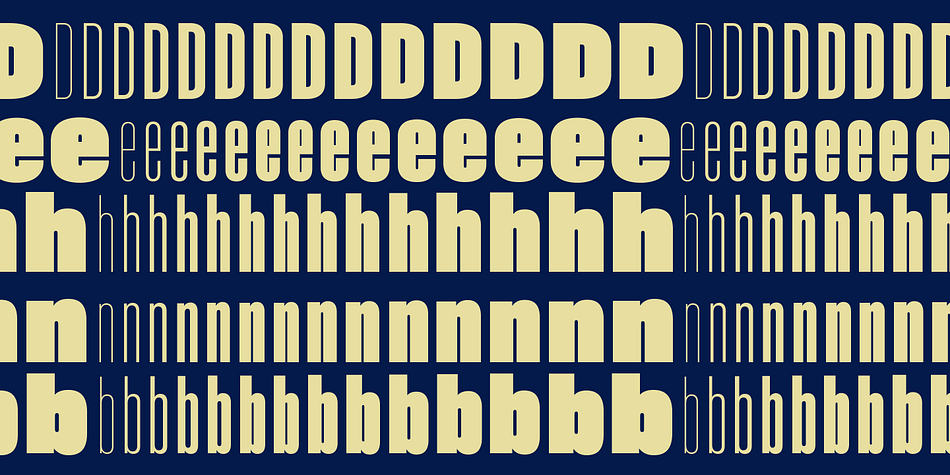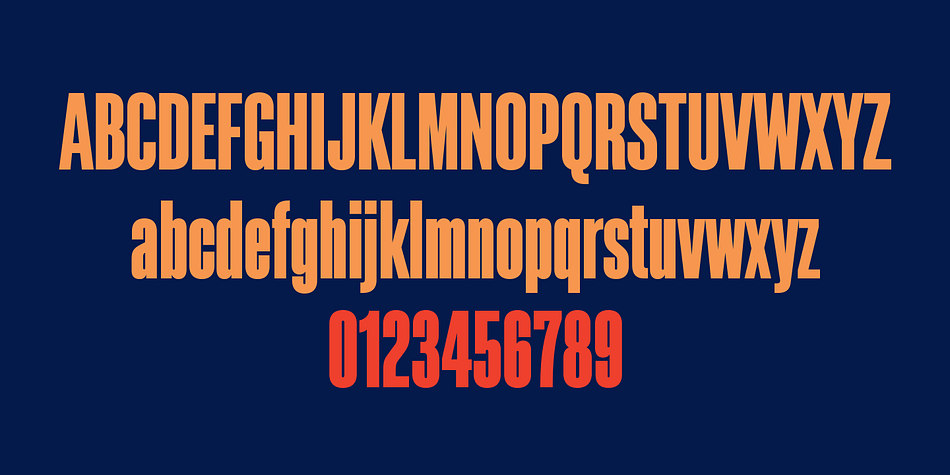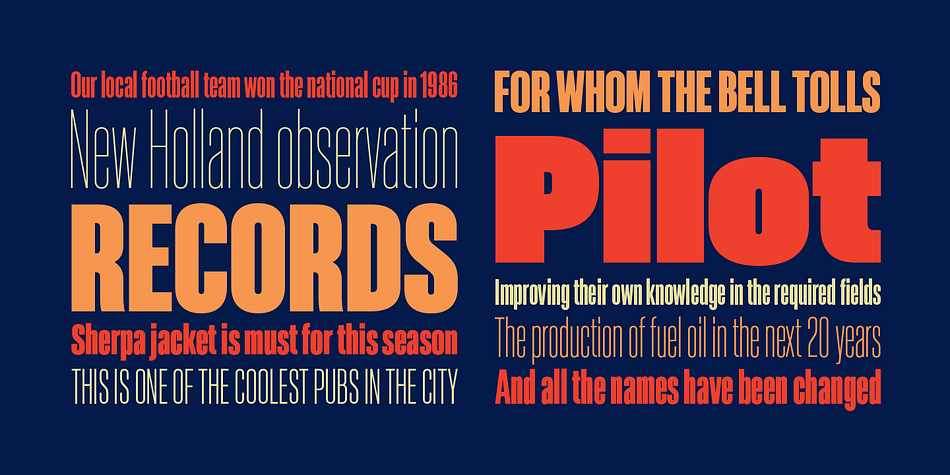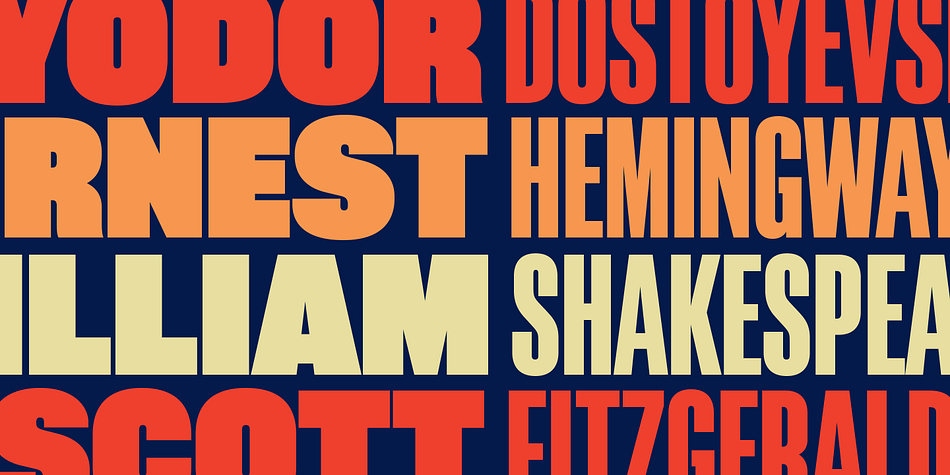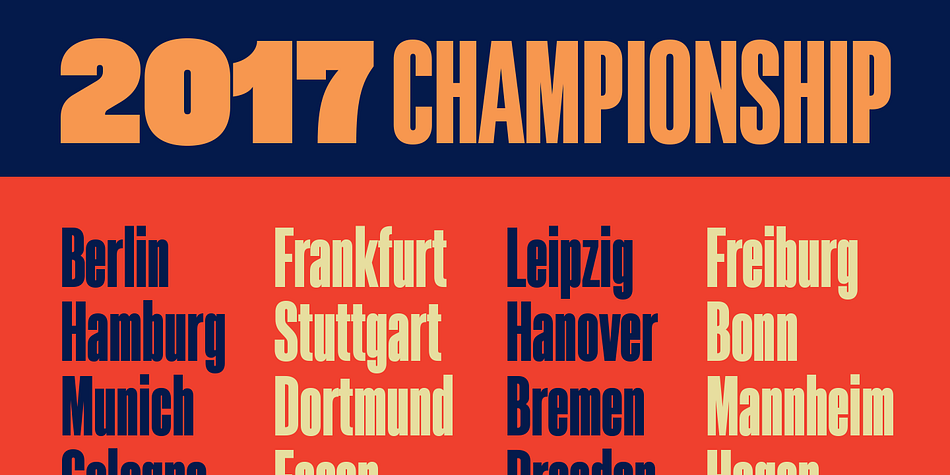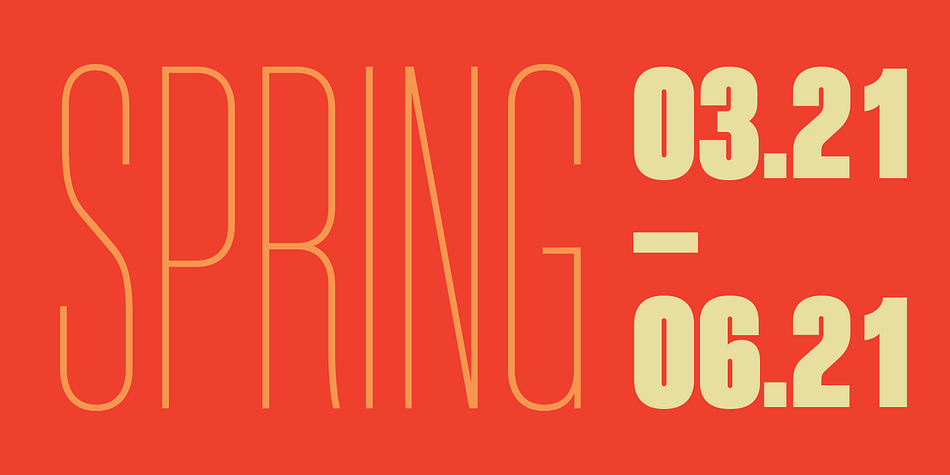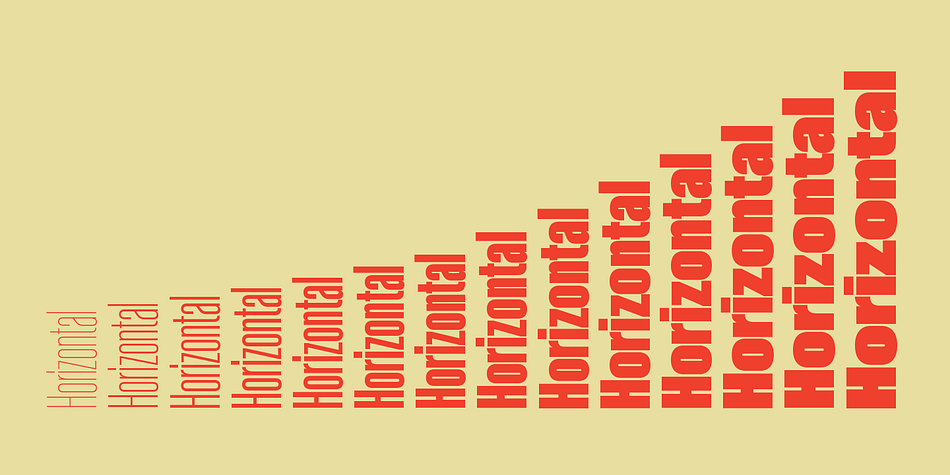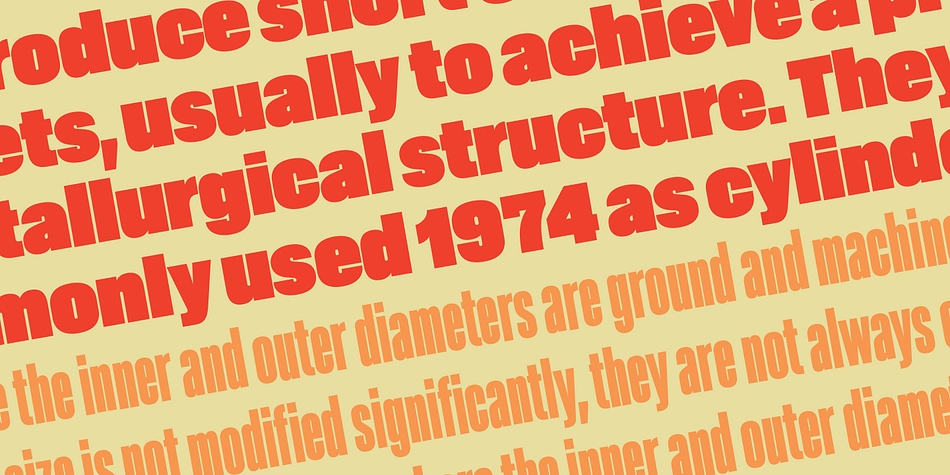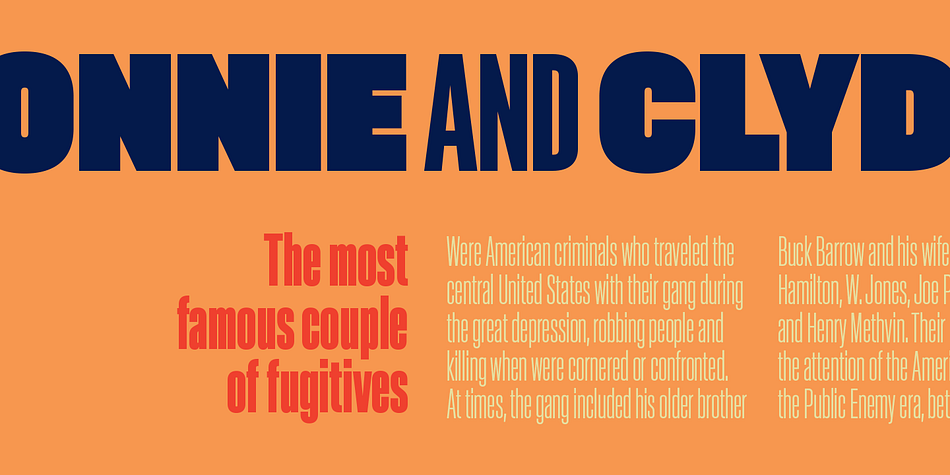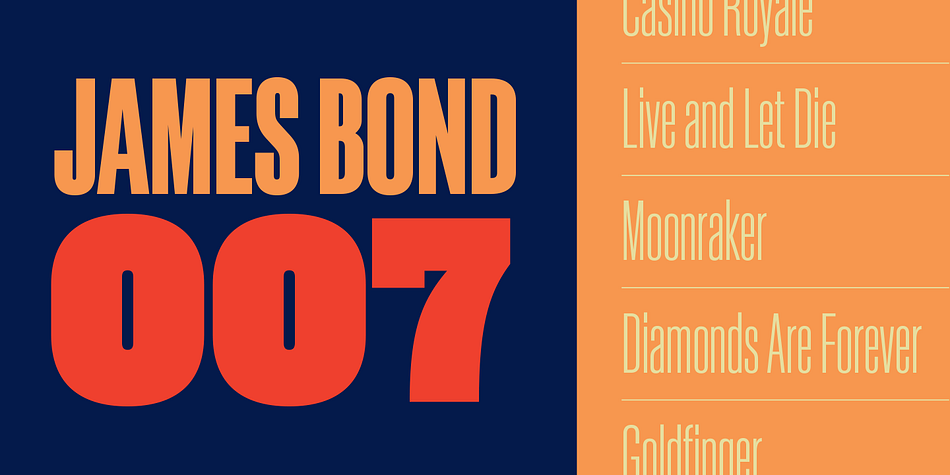
Designed by Eduardo Manso, Akkordeon is a display sans font family. This typeface has fourteen styles and was published by Emtype Foundry.
Akkordeon is a display font family roughly inspired by grotesques from the XIX and XX centuries. It is not conceived as a family of constant width but has a variable breadth from narrow to expanded, offering a wide gradation of weights. Akkordeon is designed to be used in short texts such as magazine titles, banners, cover books, charts, advertising, branding and any situation where a compact, solid and powerful font is required. The type family consists of 14 weights and support for Central and Eastern European languages. Learn more about the Akkordeon design process at the Emtype’s Blog.